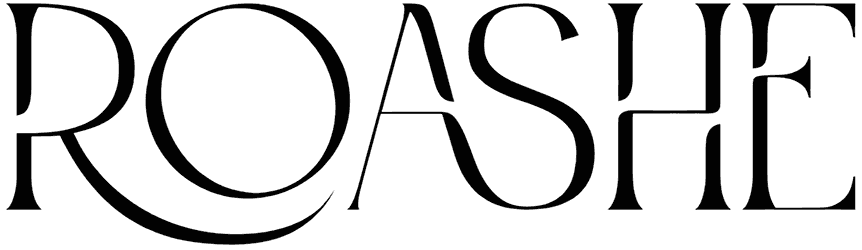
Roashe Font
A classy business card font, such as Roashe, always strives for trendy and luxury, so we suggest you test this masterpiece in your business cards, social media posts, invitation cards, branding, magazines, and so forth.
Since it conveys a sense of confidence, respect, and validity to the onlookers, and draws their engagement at first glance. Although it leaves out lowercase letters and numbers, it can create a great impact on devising any headlines.
Roashe Serif Font is created by Din Studio font designers. The font includes Multilingual Supports to make your brandings reach a global audience. Inspire your audience, clients, or guests with this beautiful, statement font.What’s included :